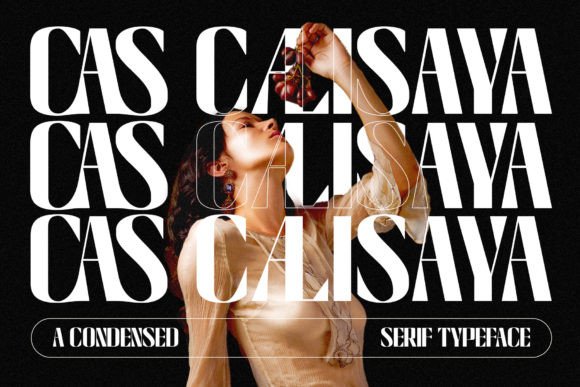
I still remember the frustration of working on a project, hours spent perfecting every detail, only to be held back by one thing: the font. My client wanted something unique, stylish, and masculine, but I just couldn’t seem to find the right fit. That was until I stumbled upon Cas Calisaya Font. In this article, I’ll share my experience with this stunning display font, its features, and how to make the most of it in your designs.
Cas Calisaya Font: A Unique and Stylish Display Font
Cas Calisaya is a one-of-a-kind display font that has quickly become a favorite in my design arsenal. Its high contrast gives it a graceful space, while the heavy weight makes it masculine and rugged. But what really sets it apart are the modern and sophisticated ligatures that add an extra layer of value to this typeface.
- ✨ Unique and stylish design that stands out in any project
- ✅ High contrast and heavy weight for a masculine and rugged feel
- ✅ Modern and sophisticated ligatures for added value
- ✅ Works well for display text, headings, and titles
While Cas Calisaya is an excellent font, there are a few things to keep in mind:
- ⚠️ May not be suitable for body text or small font sizes due to its bold nature
- 🤔 Limited use of OpenType features, but still offers some great glyphs and stylistic alternates
Cas Calisaya was designed with the intention of creating a unique and stylish display font that would stand out in any project. Its creator aimed to craft a font that was both masculine and elegant, with a touch of sophistication. While the true story behind Cas Calisaya’s design may be unknown, its inspiration is clear: to push the boundaries of modern typography.
| Font Name | Cas Calisaya Font |
| Author | Casloop |
| What is Cas Calisaya Font best used for? | Cas Calisaya is best used for display text, headings, and titles due to its bold and stylish nature. |
| Does Cas Calisaya support OpenType features? | While Cas Calisaya does not offer extensive OpenType features, it does include some great glyphs and stylistic alternates to enhance your designs. |